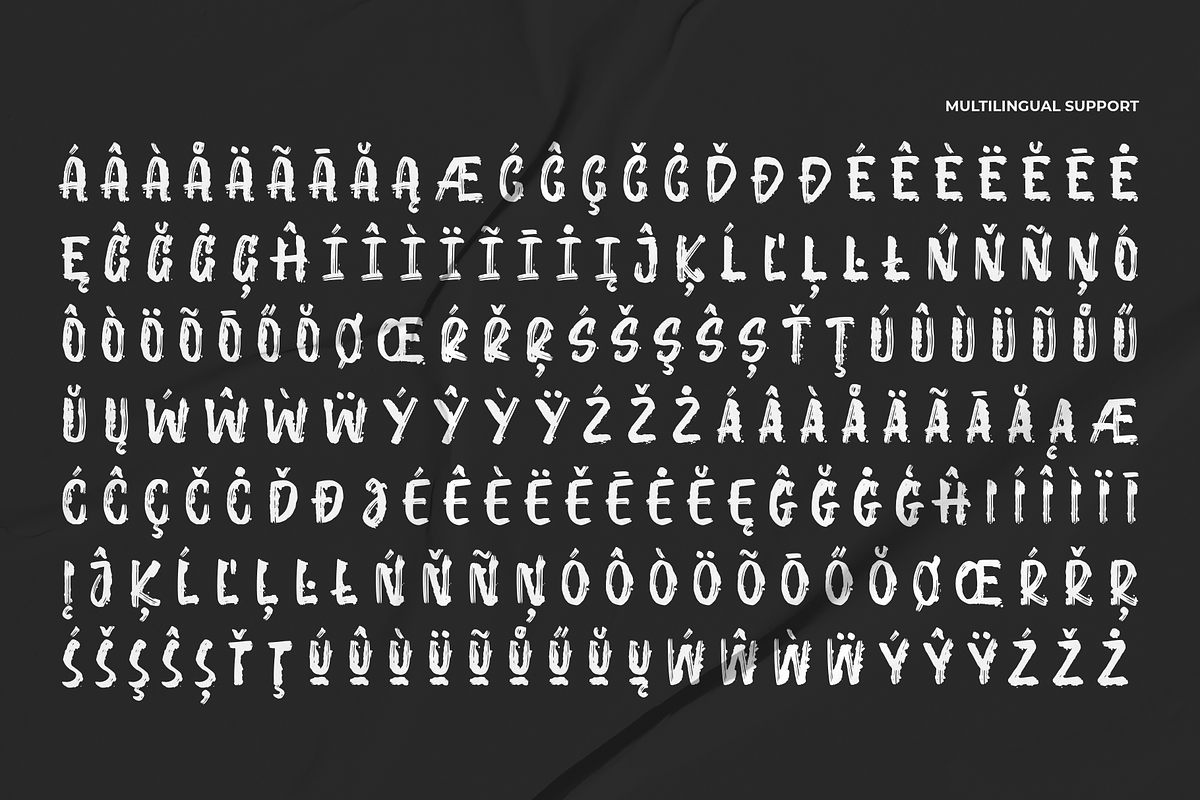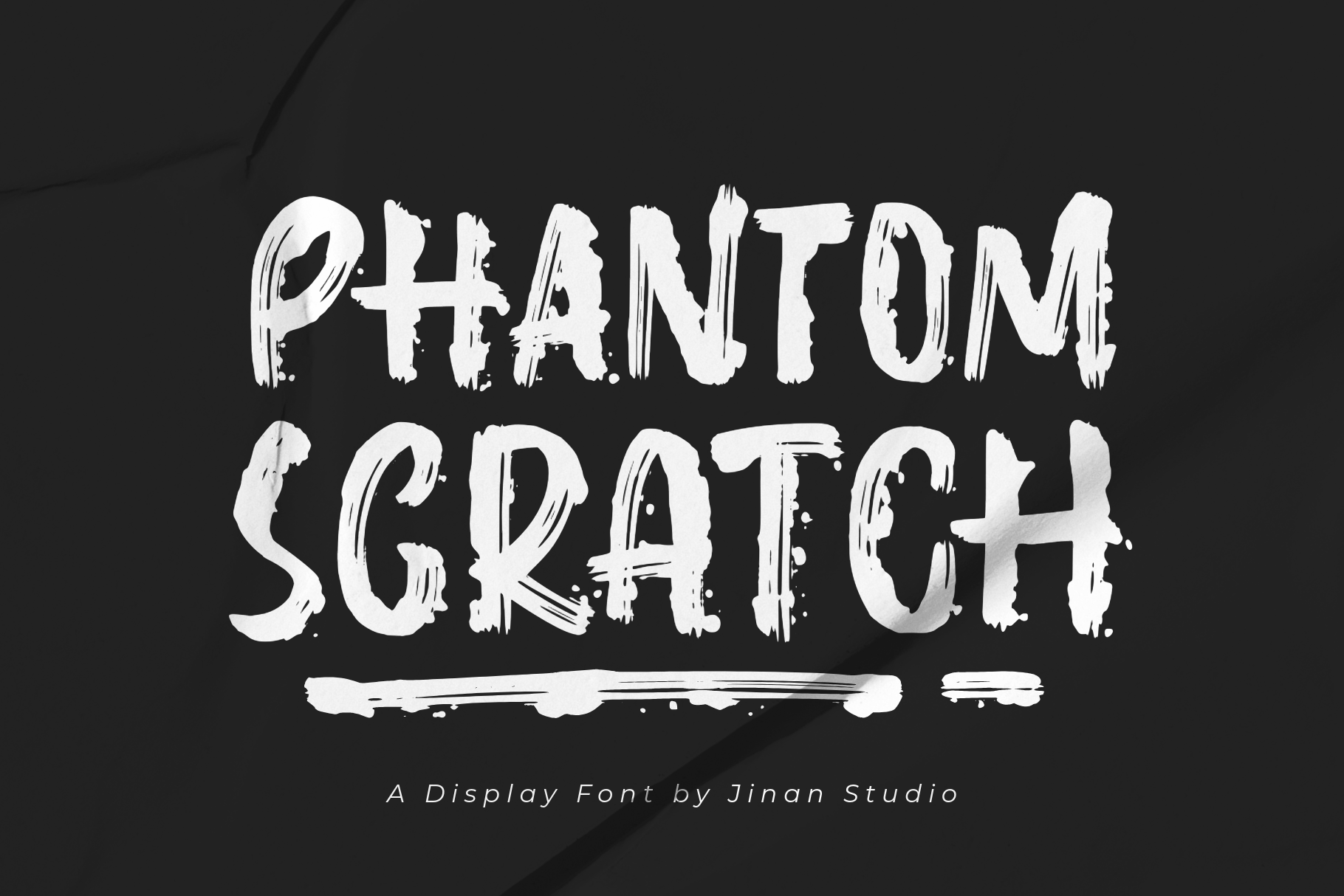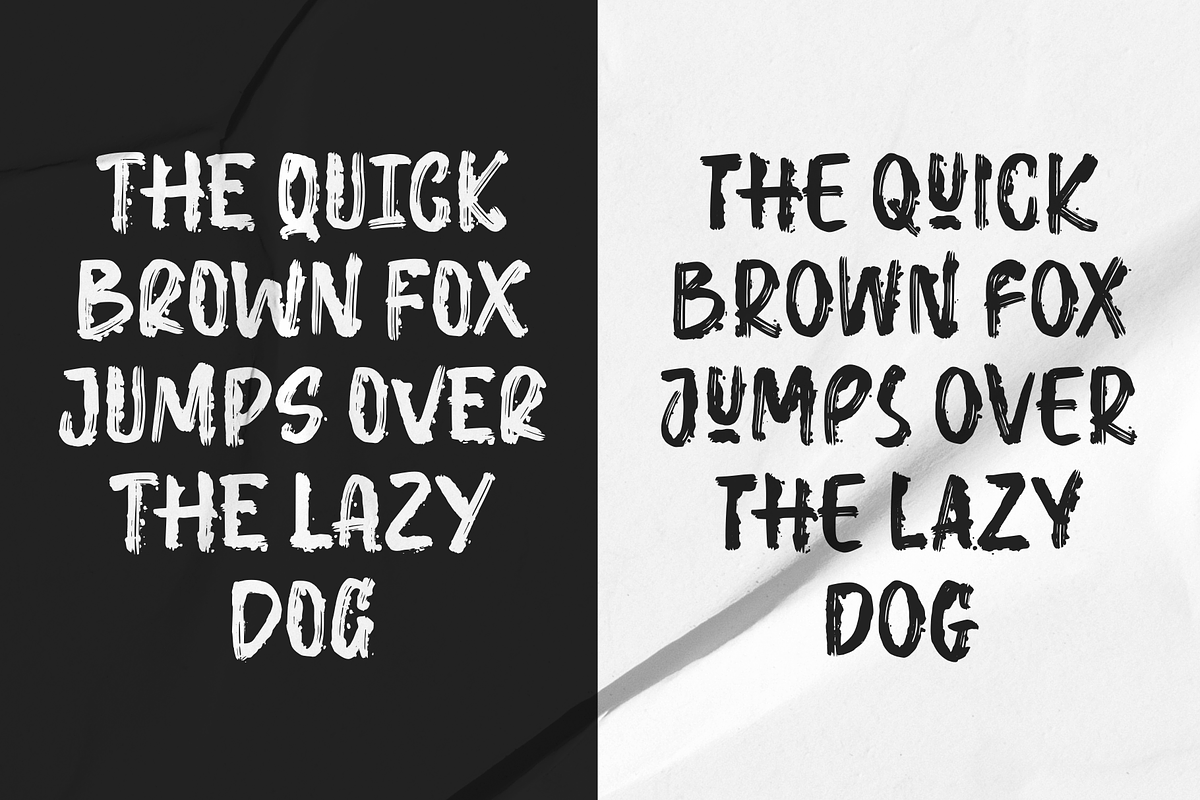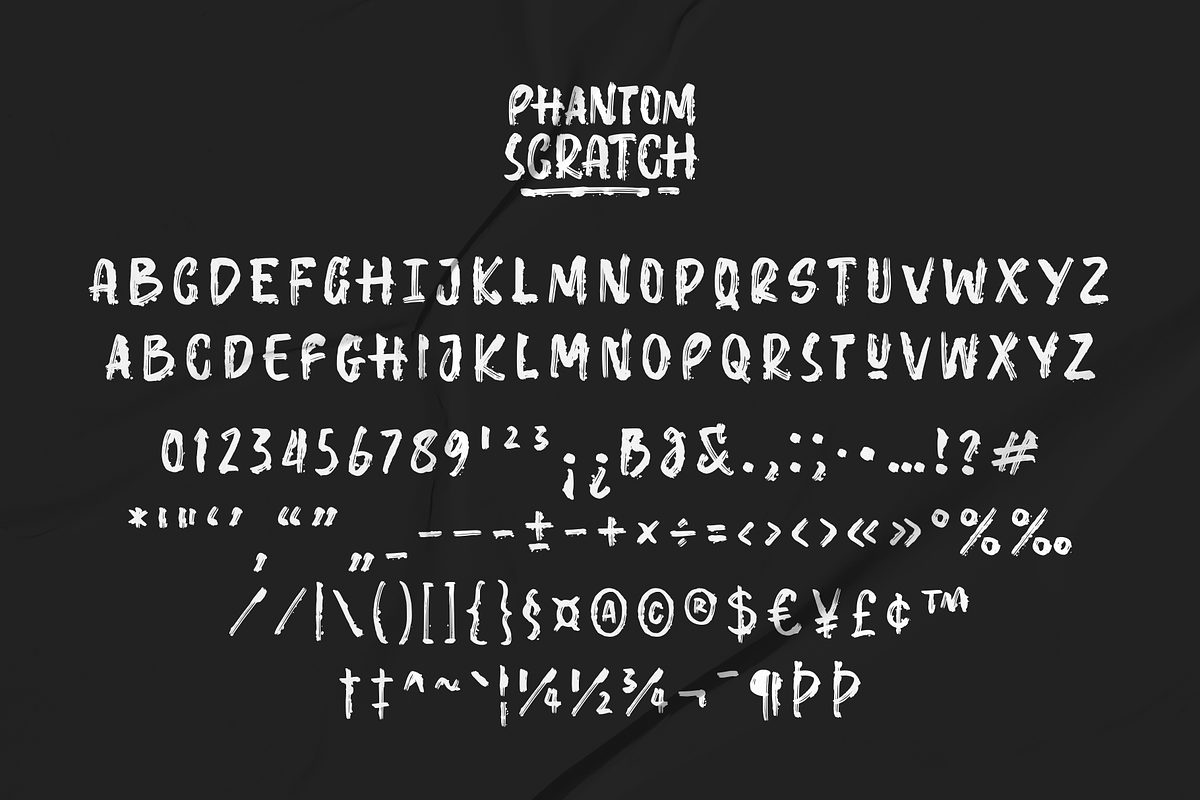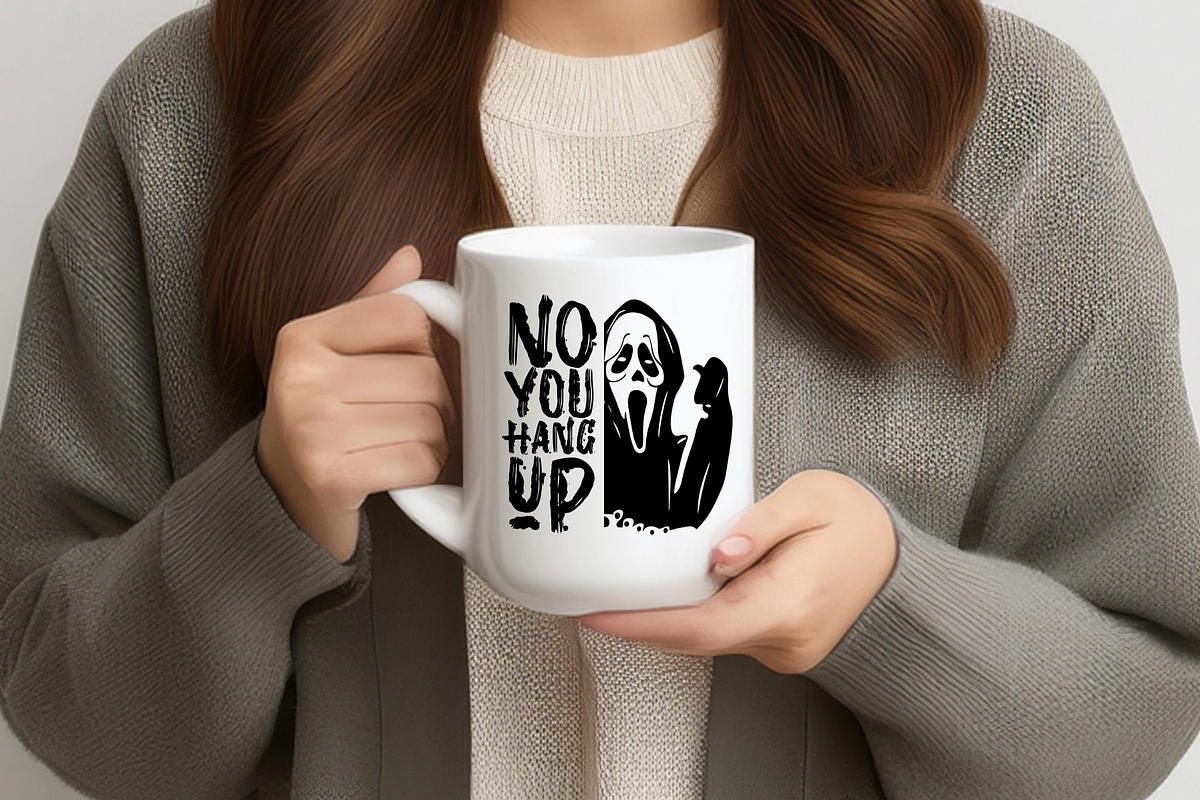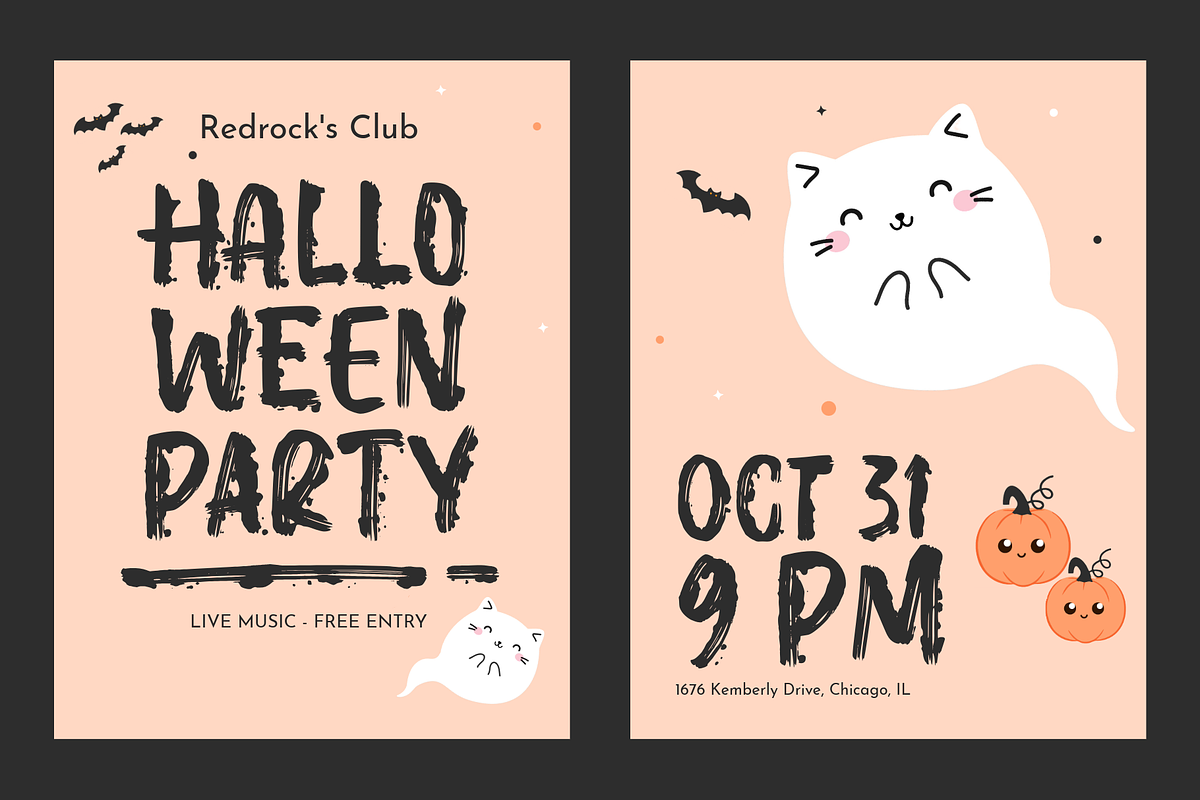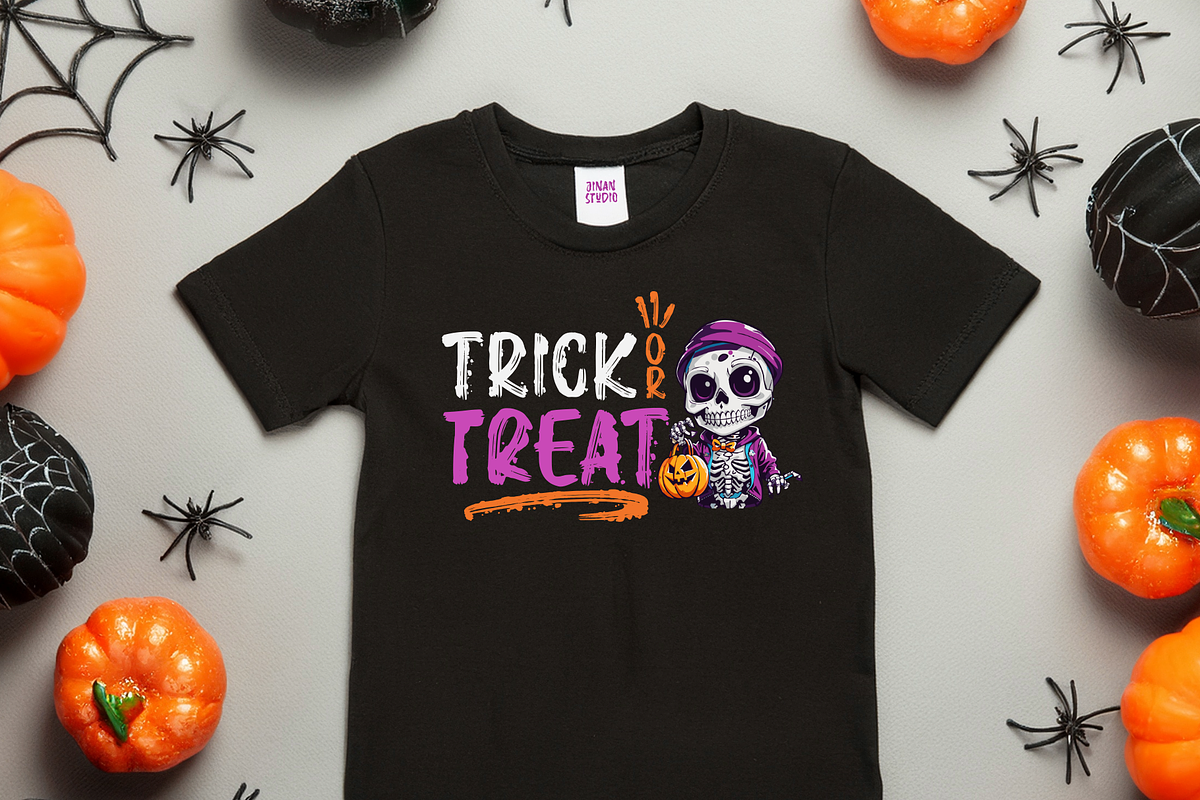
Phantom Scratch - A Display Font
Phantom Scratch is a wild brush display font with bold strokes and gritty textures. Perfect for Halloween designs, horror posters, streetwear branding, music covers, or anything that needs a raw and edgy vibe. Its handcrafted look adds instant drama and intensity, making your project stand out in style.
Make your titles scream with Phantom Scratch – bold, scratchy, and unforgettable.
- A set of uppercase and lowercase glyphs
- Number, symbol, and punctuation